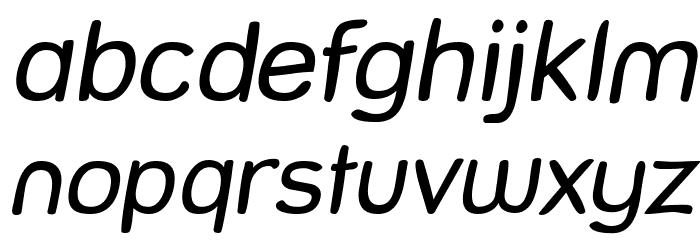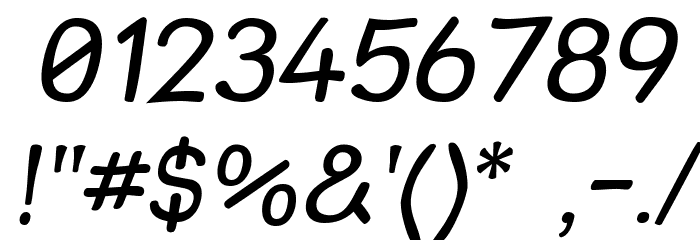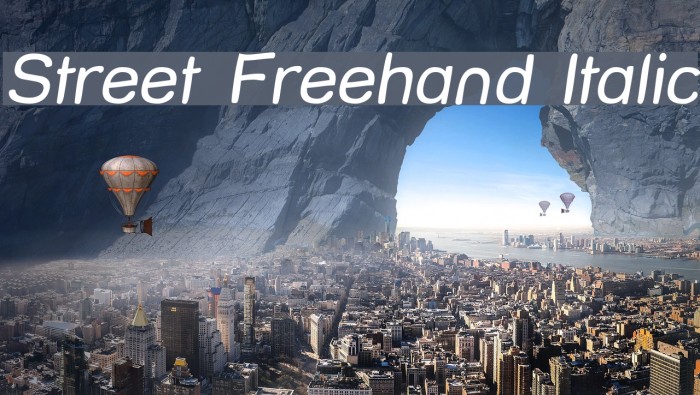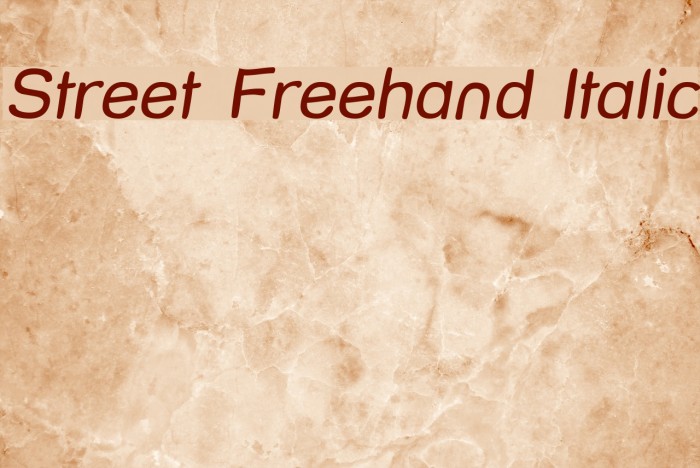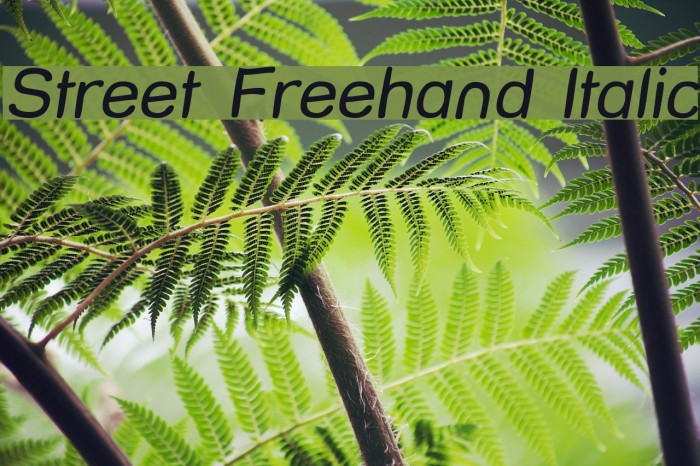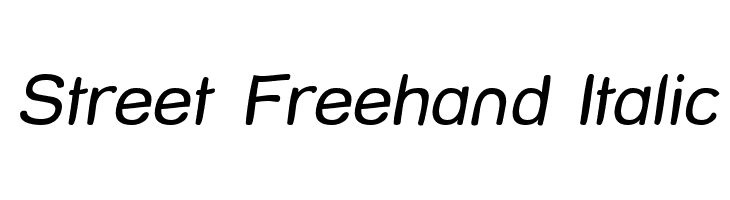
Street Freehand Italic Font
This font features a dynamic and fluid style, characterized by its freehand and italicized appearance. The letters have a natural, handwritten quality, with smooth curves and a slight slant that adds a sense of motion and informality. The uppercase and lowercase letters are well-balanced, maintaining readability while conveying a casual and artistic vibe. The numerals and special characters are consistent with the overall style, ensuring a cohesive look across all text elements. This font is ideal for projects that require a personal touch or a creative flair.
A dynamic, freehand italic font with a casual, handwritten style.
- Proposed Projects: Ideal for creative projects such as greeting cards, invitations, artistic posters, and branding materials that require a personal and informal touch.
- Overall Style: Casual, Artistic
- Use Case: Headlines, Creative projects, Informal branding